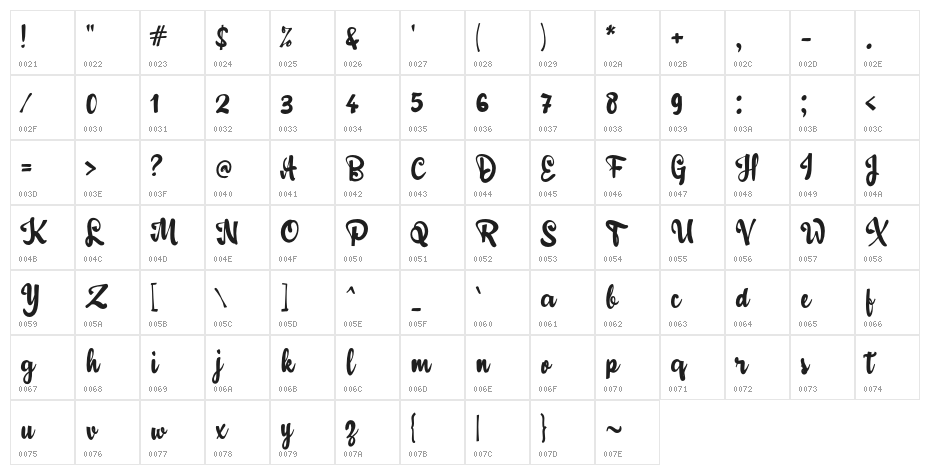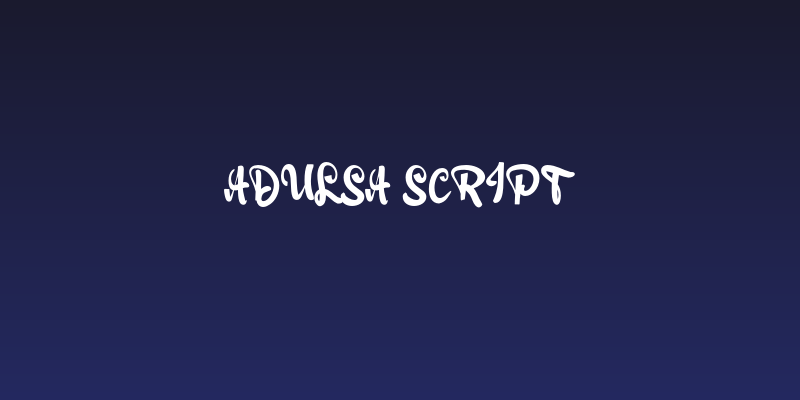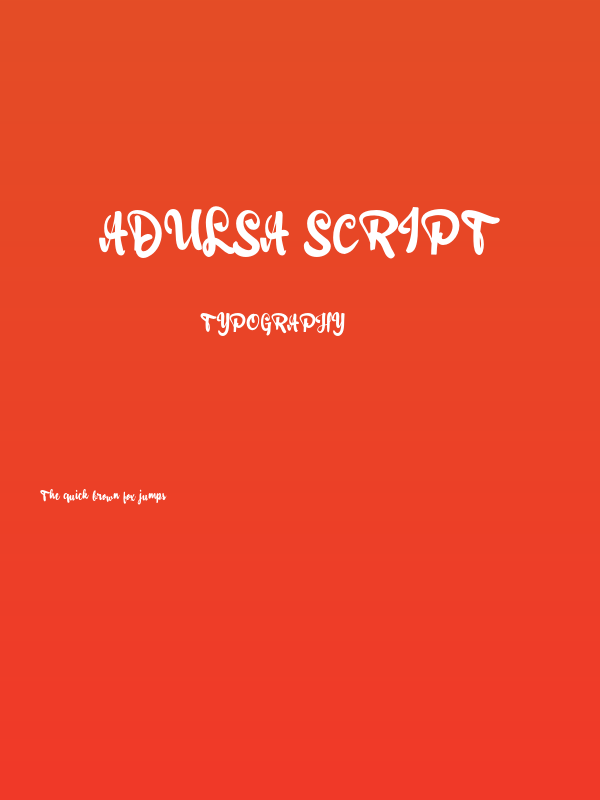
Adulsa Script Font
Adulsa Script Description
This font features a bold, flowing script style that combines elegance with a playful touch. The uppercase letters are characterized by their sweeping curves and distinctive loops, giving them a dynamic and lively appearance. The lowercase letters maintain a consistent style, with smooth connections between characters that enhance readability while preserving the font's decorative nature. The numerals are bold and slightly rounded, complementing the overall aesthetic. Special characters are crafted with the same attention to detail, ensuring they blend seamlessly with the rest of the font. This script font is perfect for projects that require a touch of sophistication and flair.
| Use Case | Logos, Headlines, Invitations |
| Proposed Projects | Ideal for wedding invitations, greeting cards, branding, and logo design. |